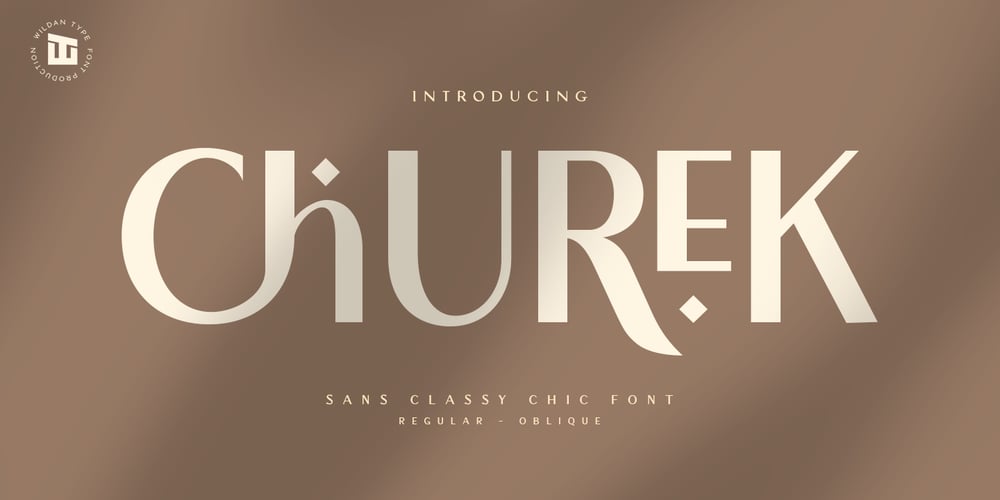
Churek Font Family was designed by Wildan Suprian Syah and published by Wildan Type. Churek contains 2 styles and family package options. Churek is a elegant and classy chic serif font for brand, logo and quotes design.Based on our experience as a graphic designer, we often are requested to design a logo in a unique style but with an elegant shape. So, we try to brainstorming and create this font to make the idea is going out. This is perfect for Branding and Logo design. You will get classy, elegant, and certainly unique logos with this font. Don’t Worry! you also can use this font for quote design or display text. Churek is also included full set (oblique and regular) of:uppercase and lowercase lettersmultilingual charactersnumeralspunctuationWish you enjoy our font. ๐